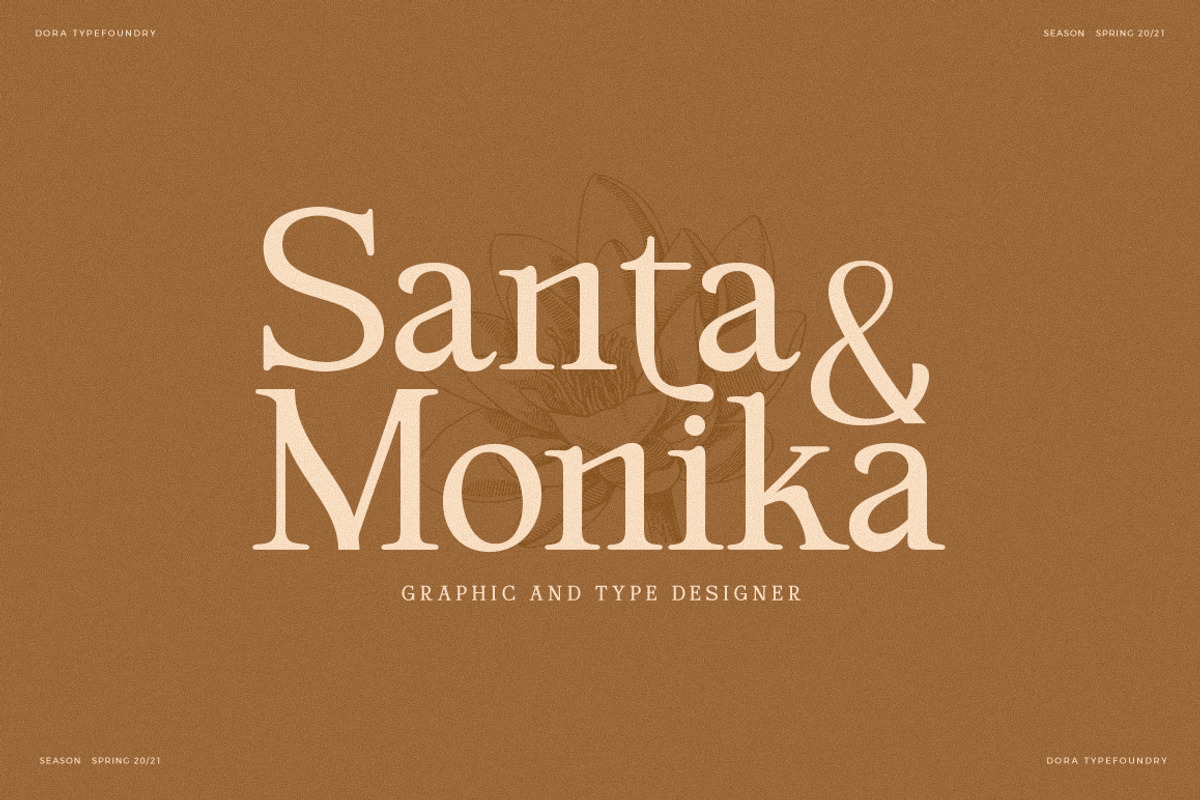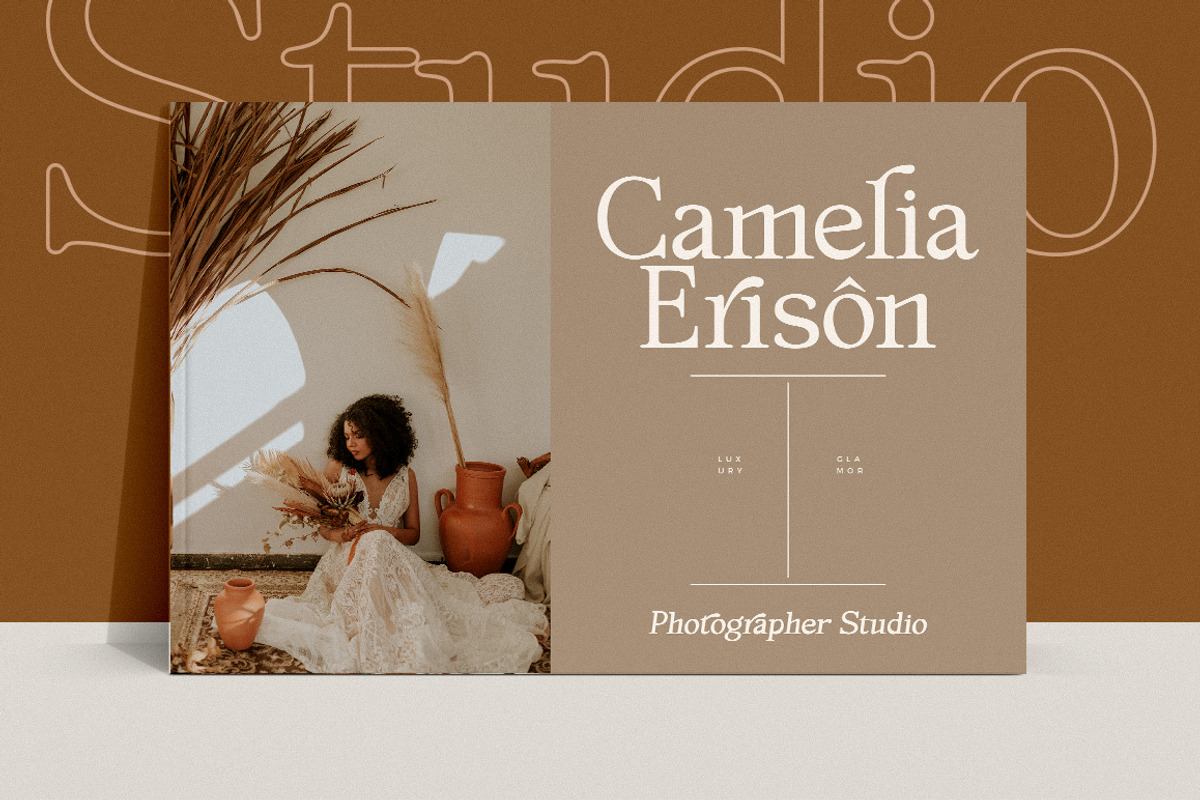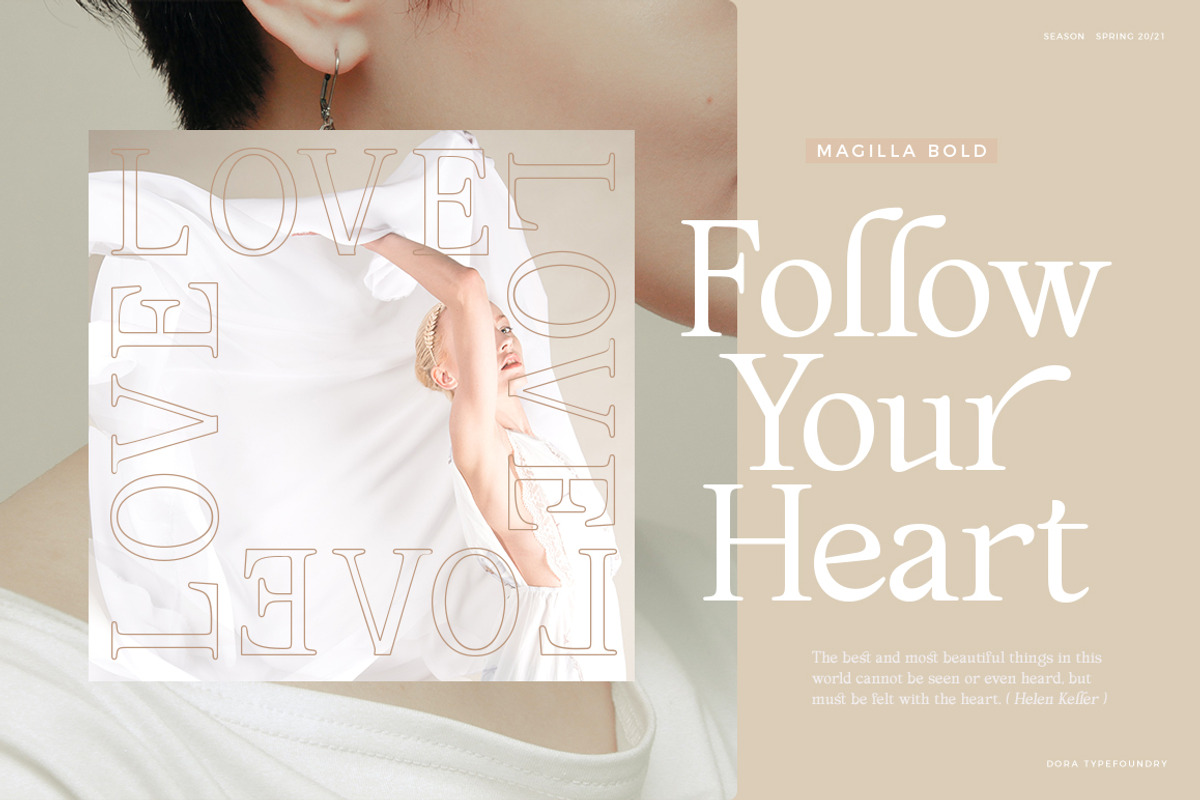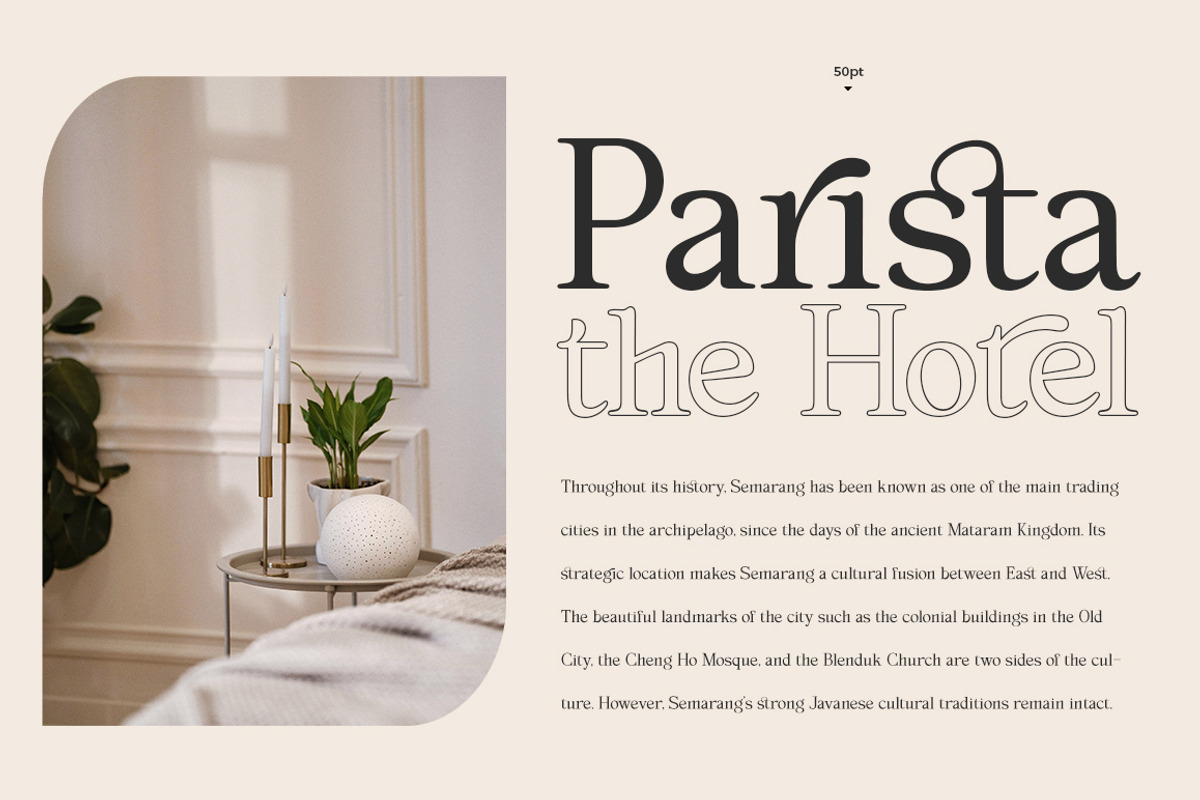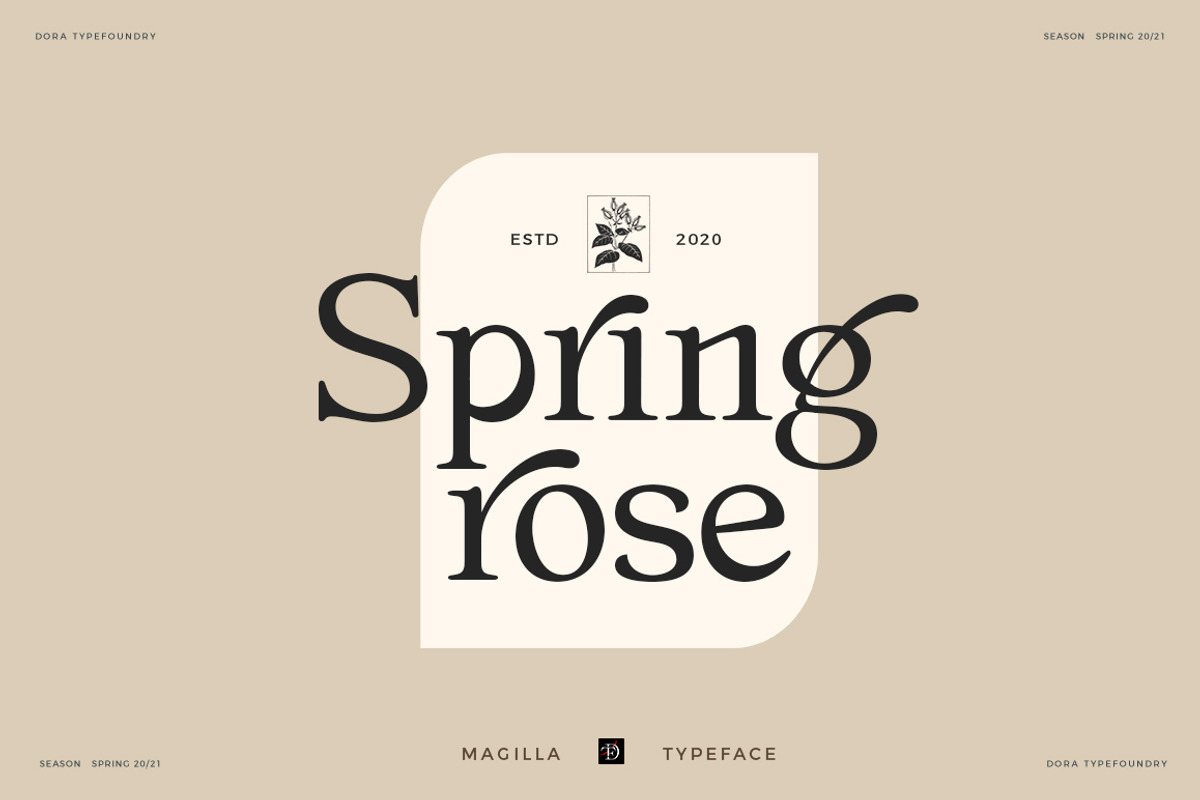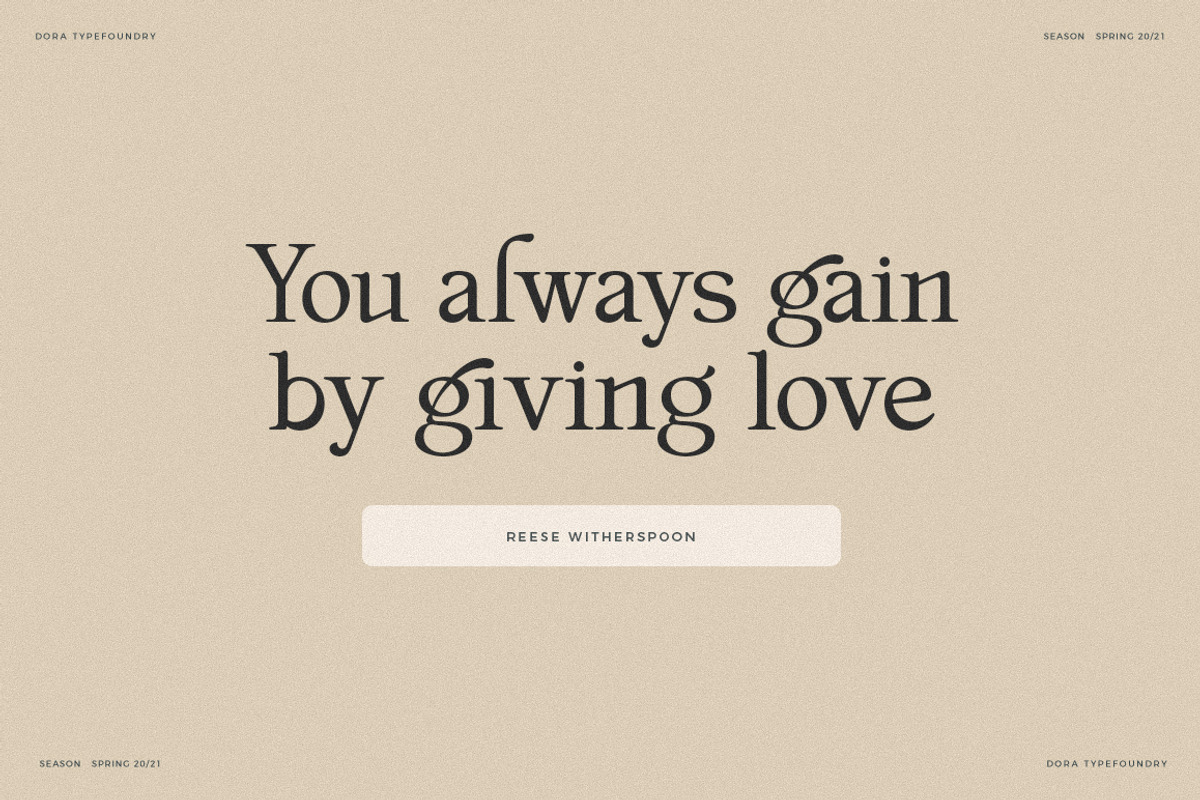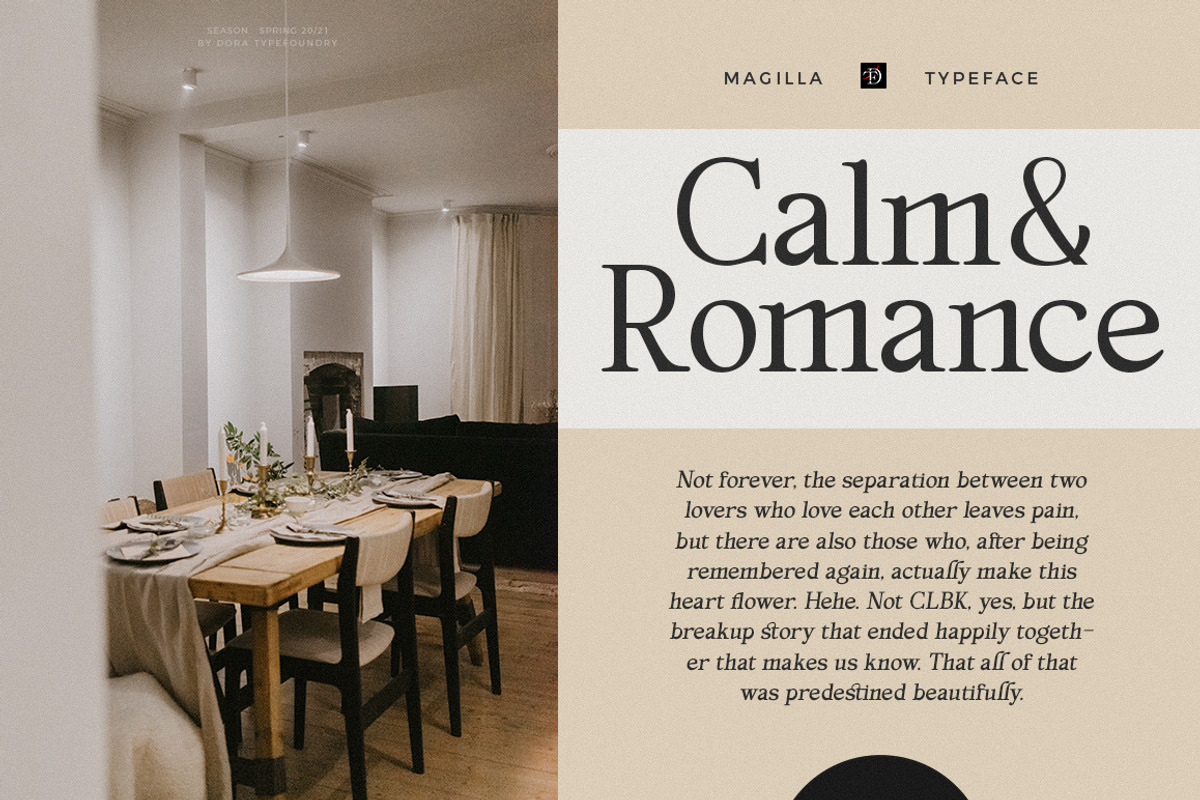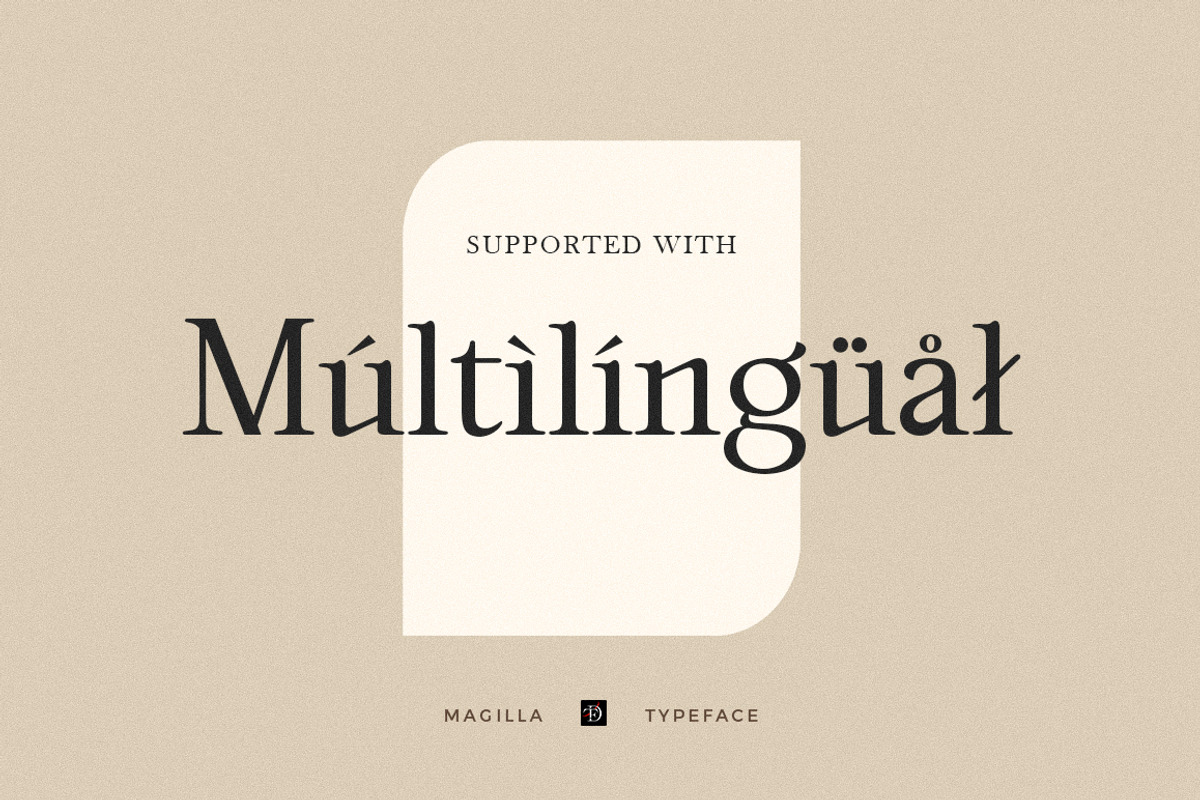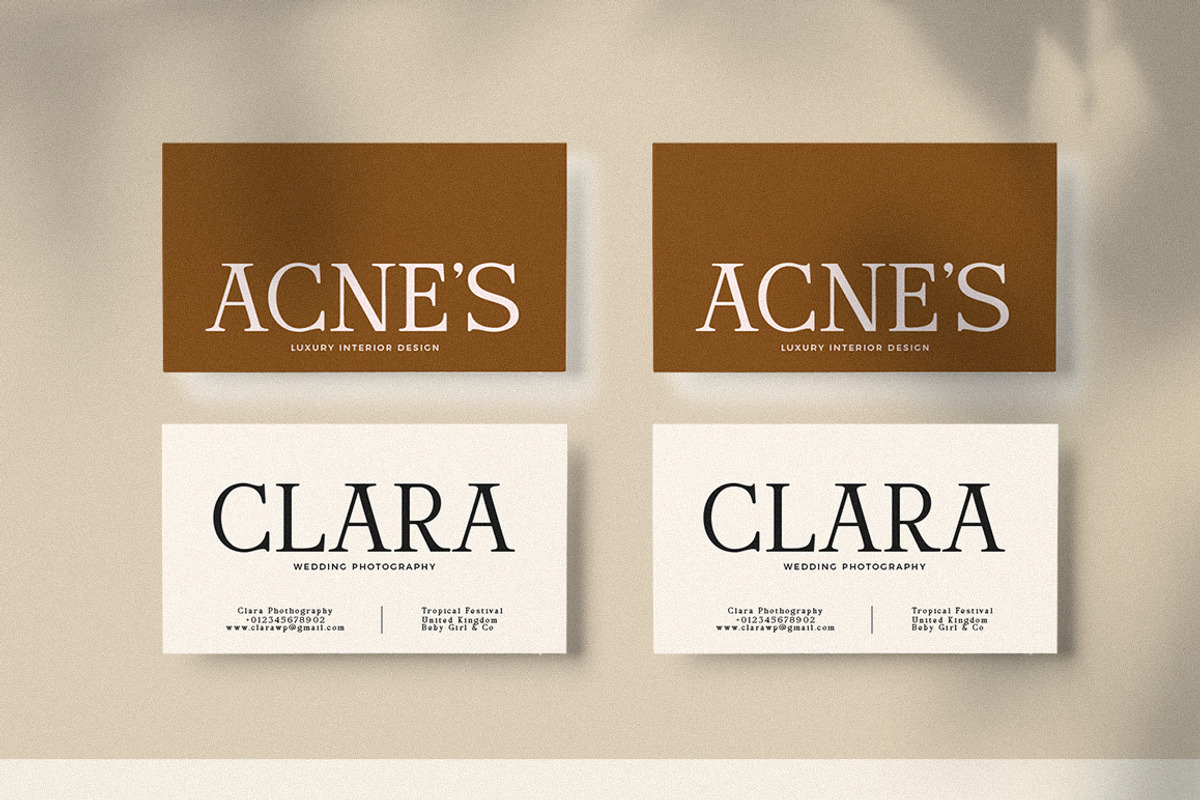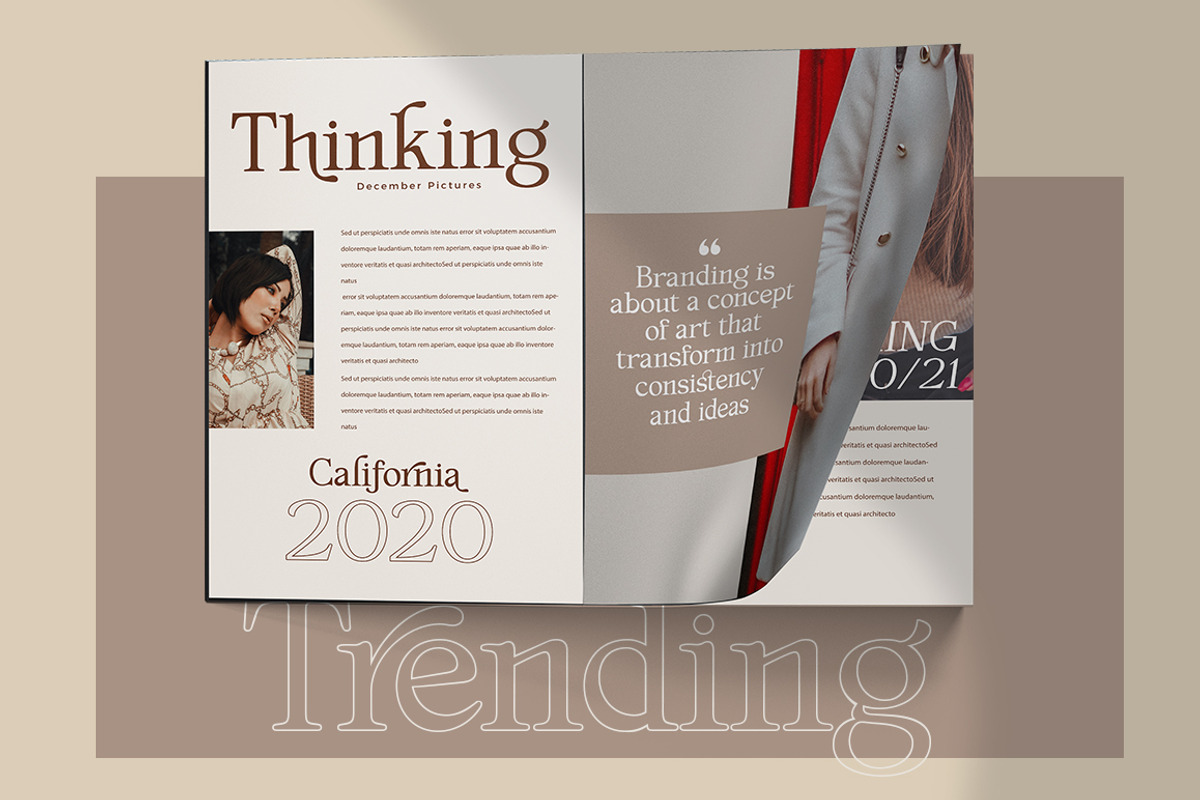
Magilla - Serif Font
Magilla is a new elegant serif font that will add a touch of luxury and style to your projects. This is a very versatile font that works well in large and small sizes. Perfect for editorial projects, magazine headers, Logo designs, Clothing Branding, product packaging, and showcasing masculine and feminine qualities.
Magilla is equipped with uppercase, lowercase, numbers and full punctuation + Multi language support and PUA-encode.
- Magilla Regular
- Magilla Bold
- Magilla Outline
- 3 Font weight
- Uppercase & Lowercase letters
- Alternative & Ligature Styles
- Characters with accents
- Supports Multiple Languages